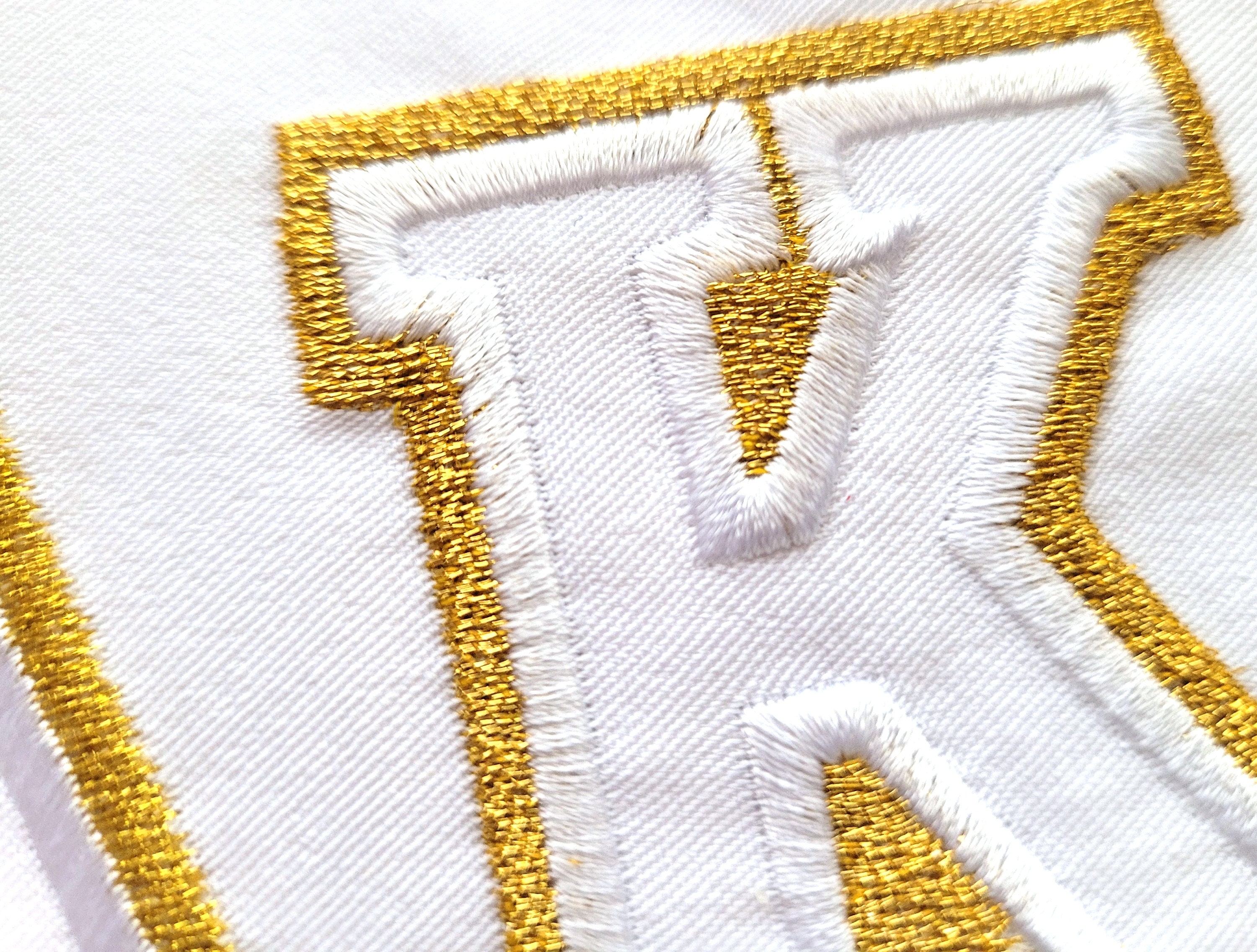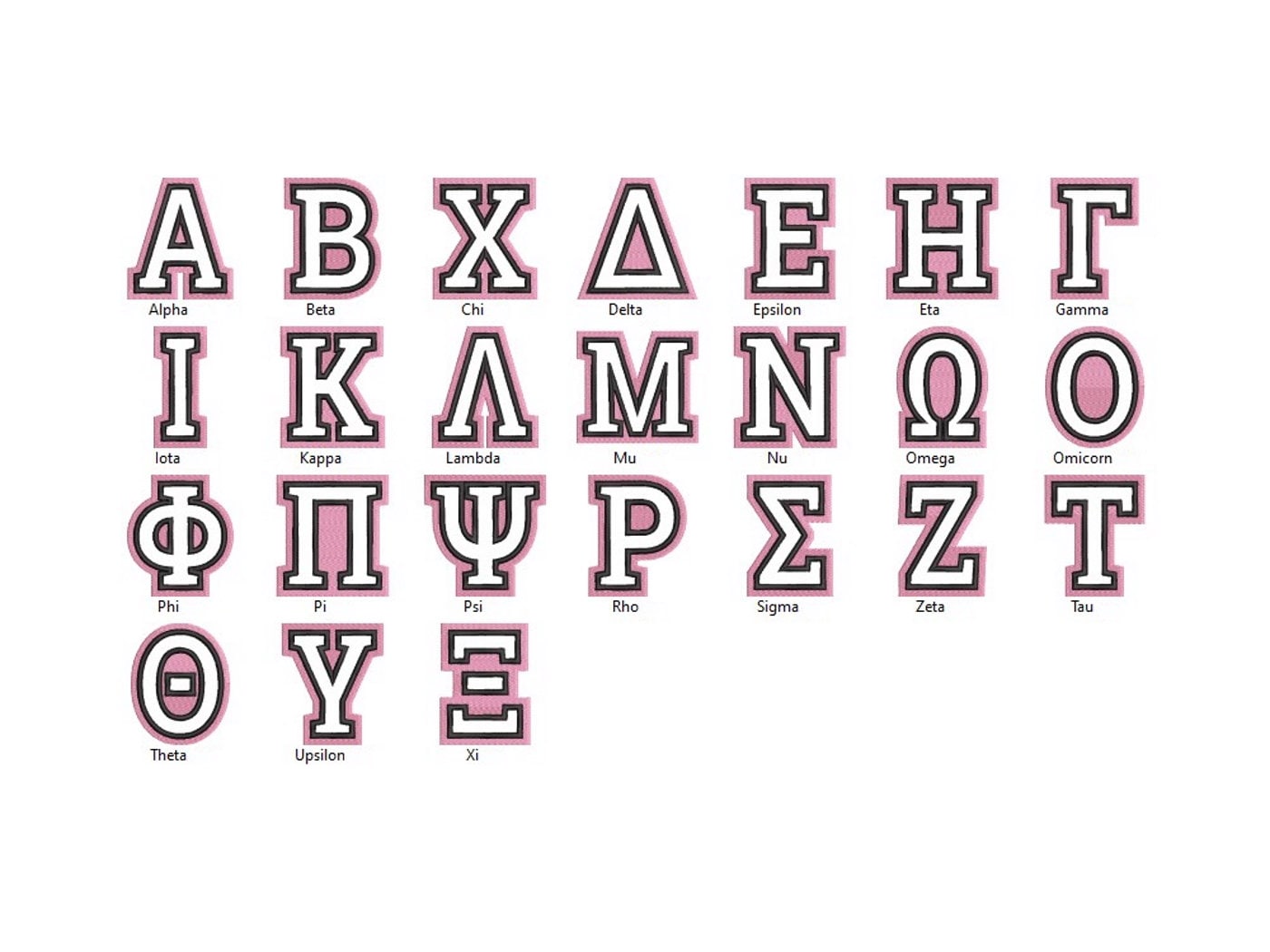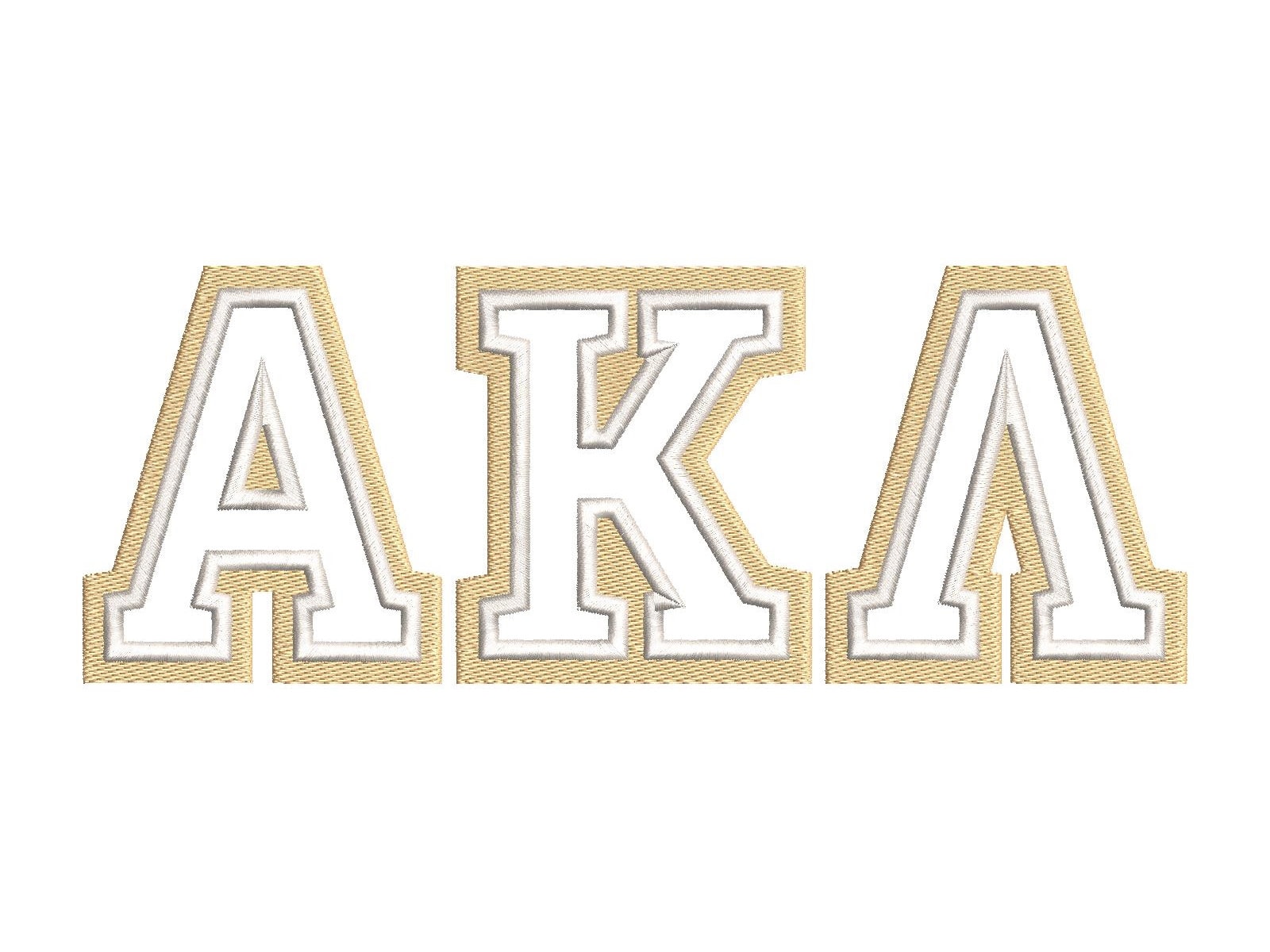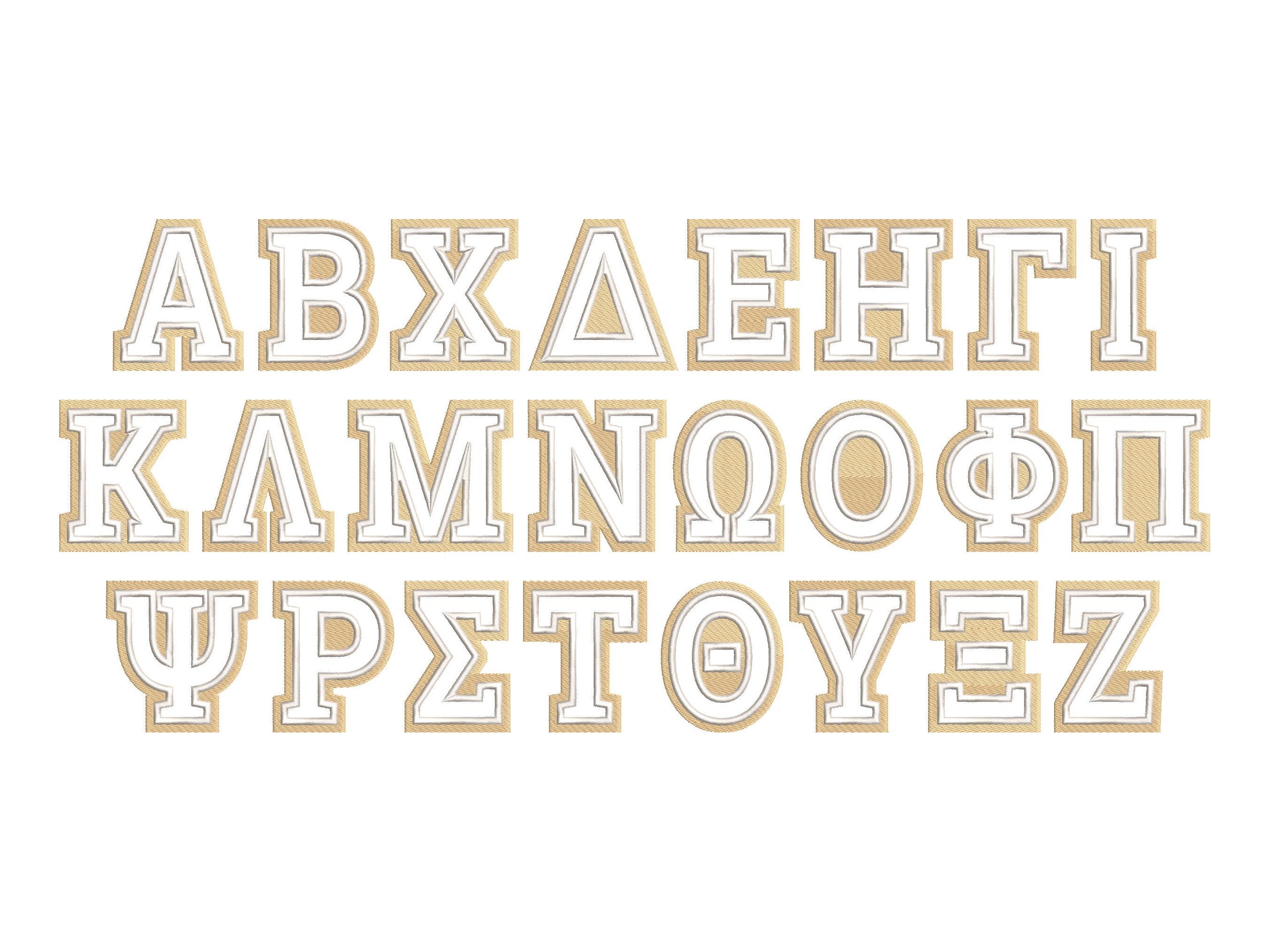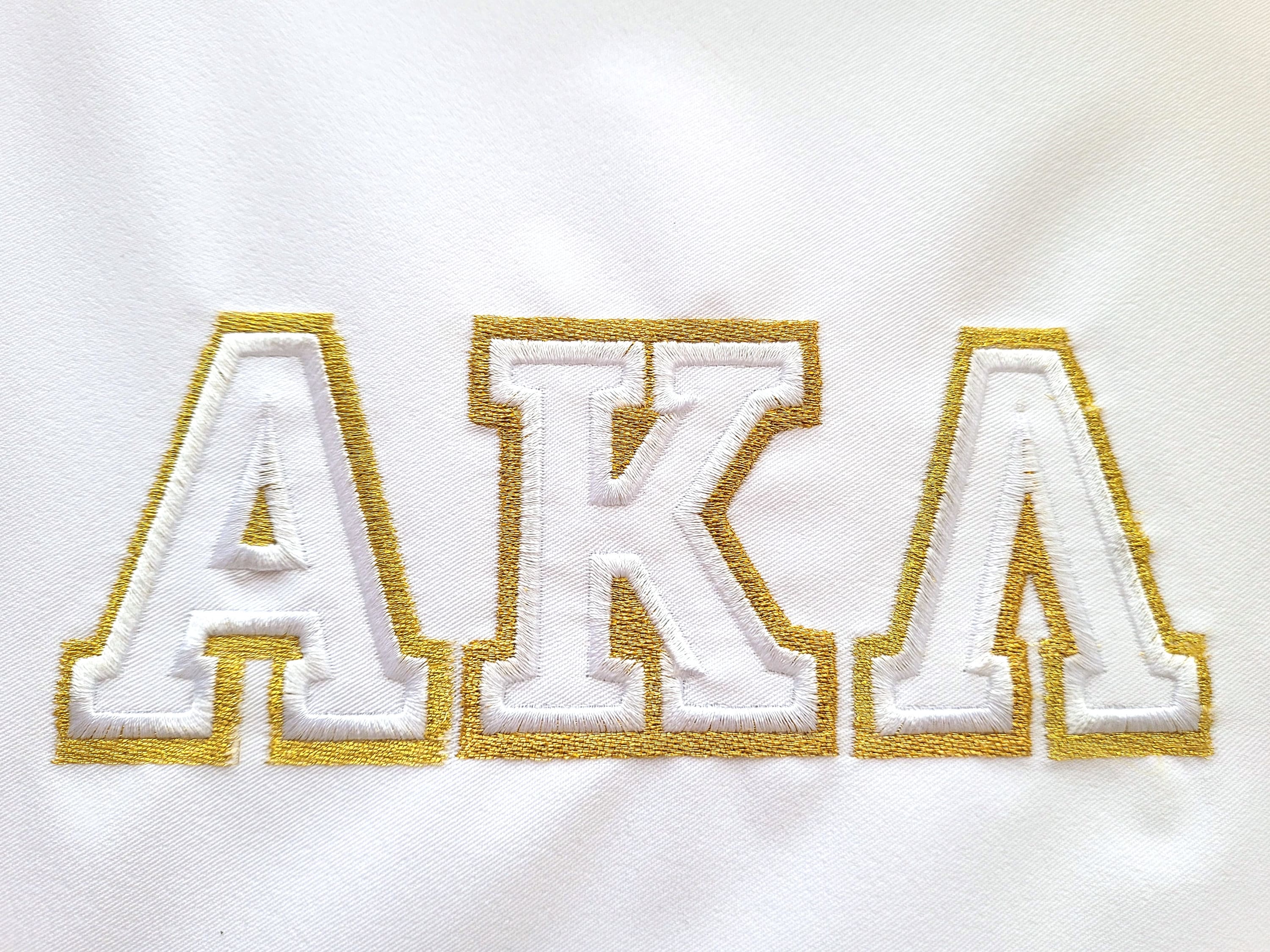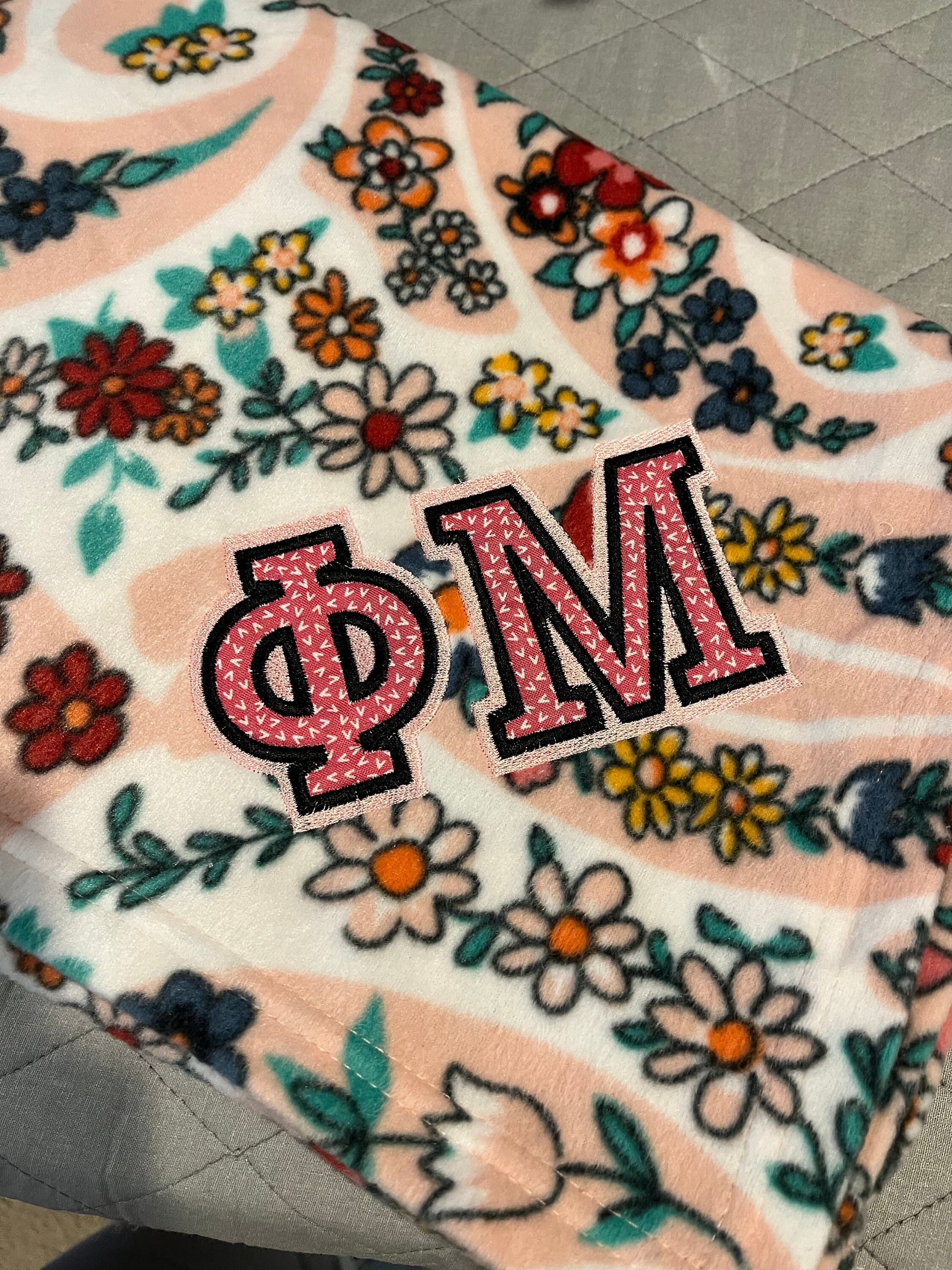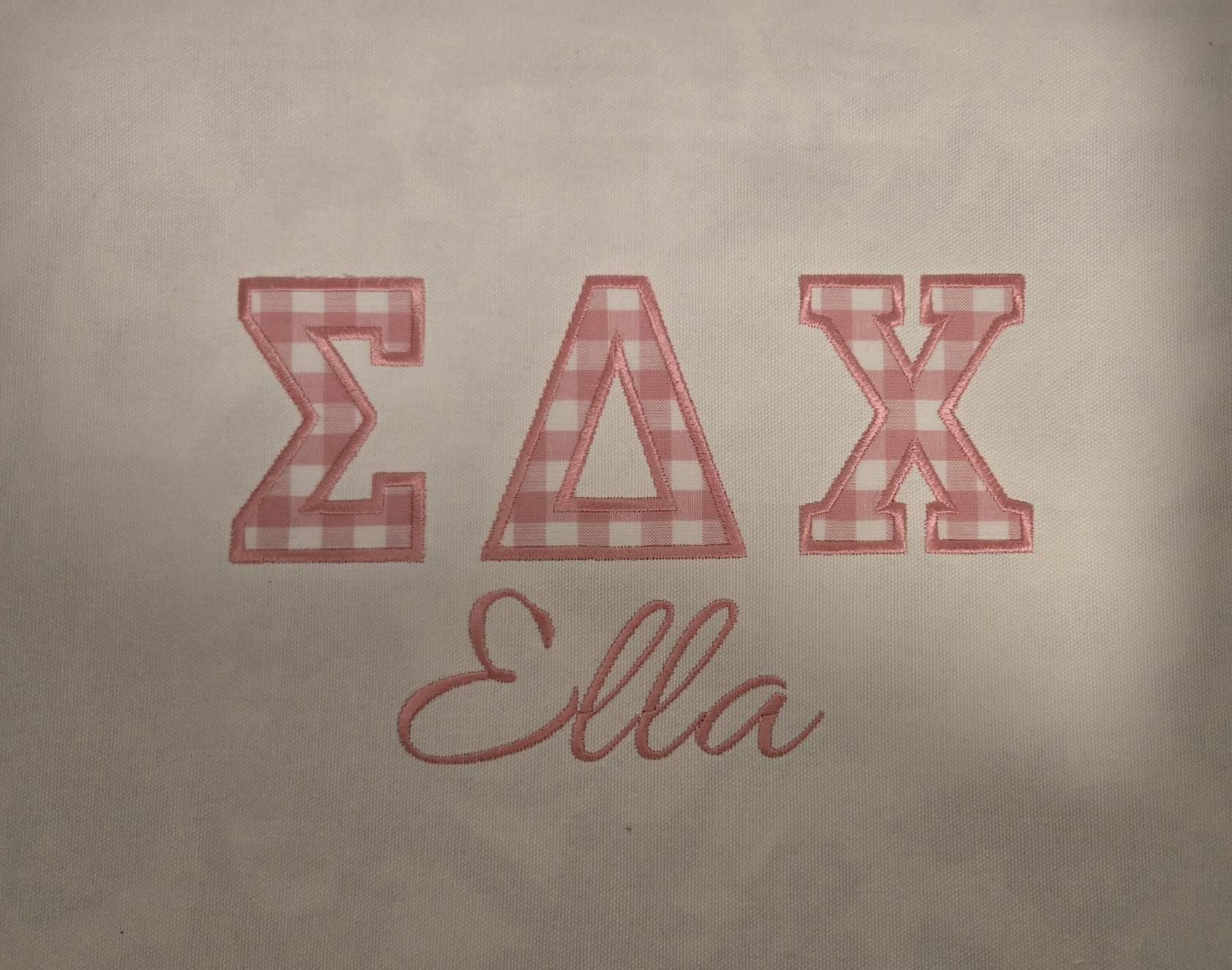
Gorgeous GREEK FONT fill stitch and applique Greek alphabet Alpha Beta Gamma Theta applique machine embroidery designs monogram letters, BX included
The letters have a fill stitch outside and an applique inside.
best stitch out I have done. Will definitely us again with college grandkids gifts.
I used this font to make pillows for my daughter's "bigs." She decided she only wanted the satin stitch outline. The stitching was a little off (which was fixed by shifting it in my embroidery program), and the Chi was a little smaller than the other letters. The pillows turned out very cute, though! The bigs loved them!
As a Greek that planned to use this font to type actual greek words and names I found the scale and shape of some of those letters off. I didn't notice the images so it was my mistake but I still won't use them and I regret buying them
Some of the lettering didn’t line up well.